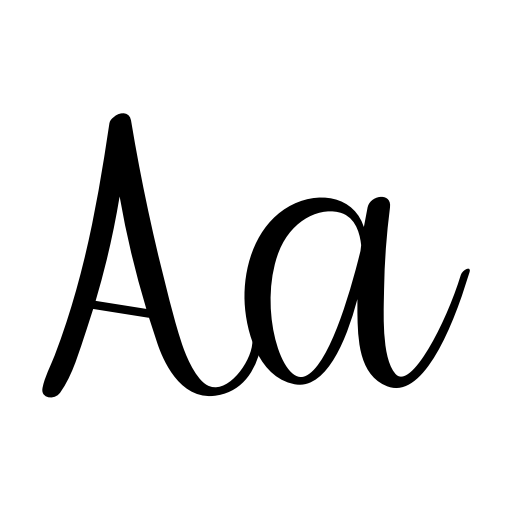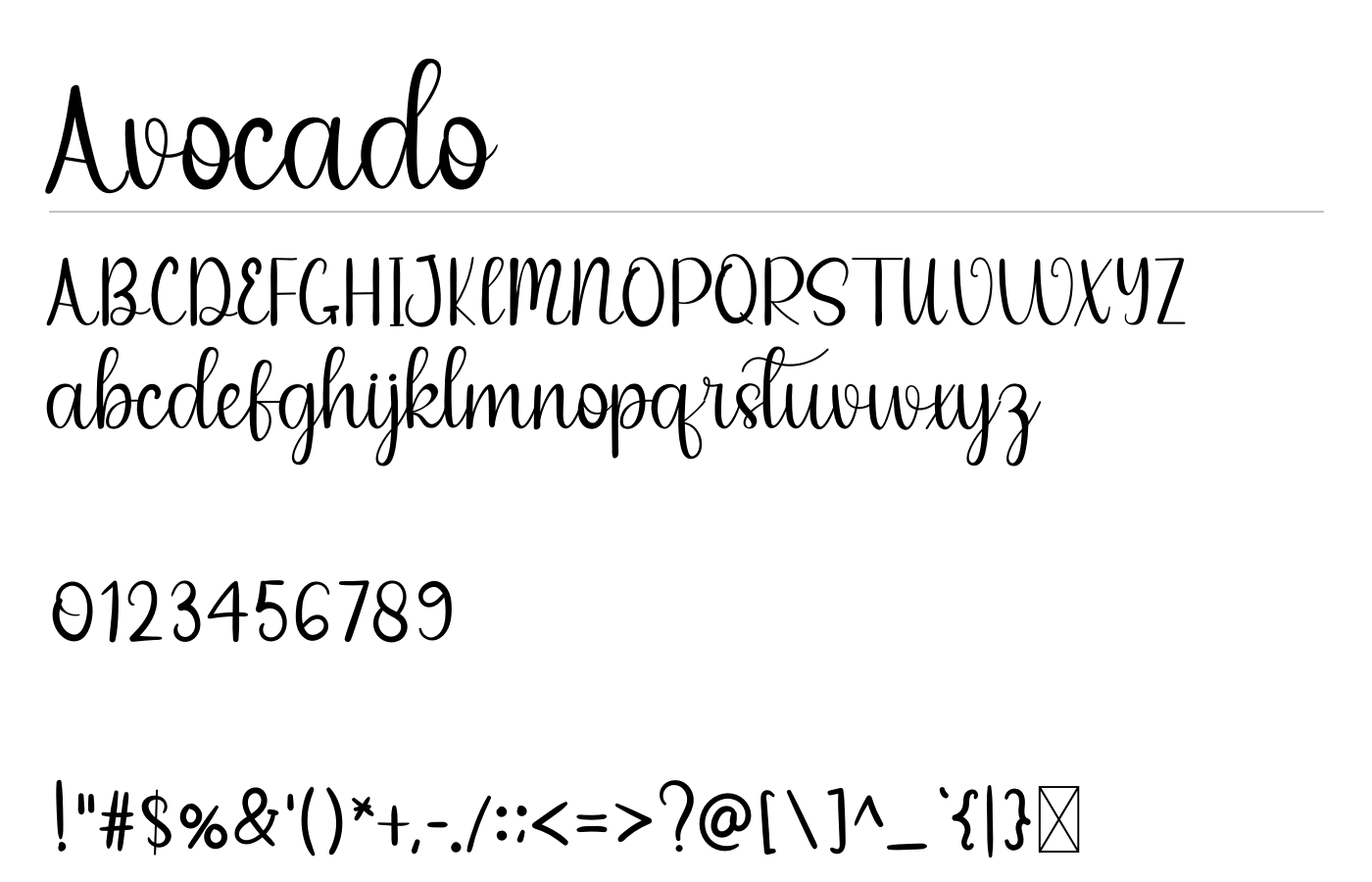
Avocado is a playful and elegant script font with a casual handwritten style that features tall, narrow letterforms and delicate curls on some characters, giving it a friendly yet refined personality. Its thin strokes and distinctive letter shapes make it ideal for creative branding, invitations, and lighthearted editorial projects where a personal, approachable touch is needed. This font works best in display settings such as logos or headlines, bringing charm and warmth to any design.
Avocado Font